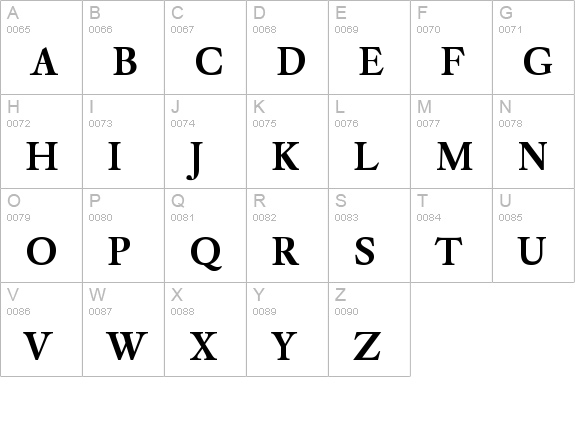
DTLElzevirS-Bold is a strong, high-contrast variant in the DTLElzevirS typeface family \xE2\x80\x94 well suited to headlines, attention-grabbing titles, and strong calls-to-action.